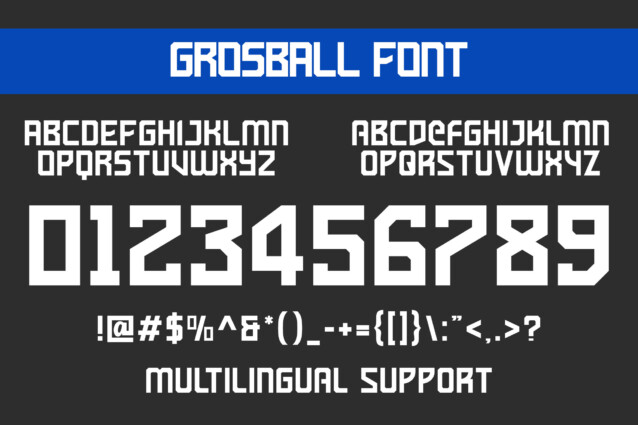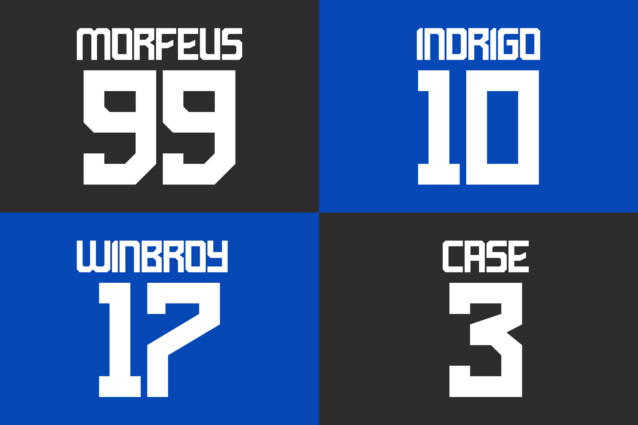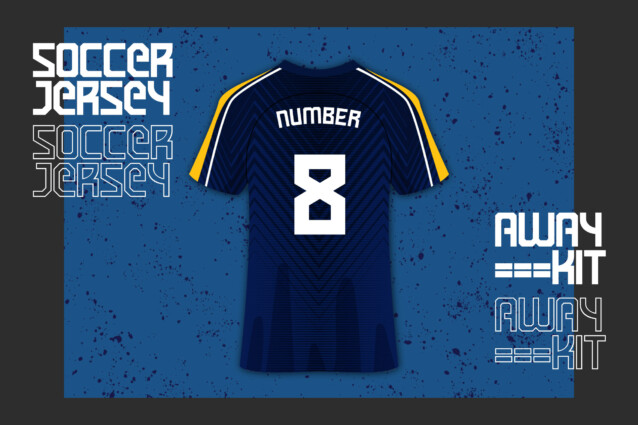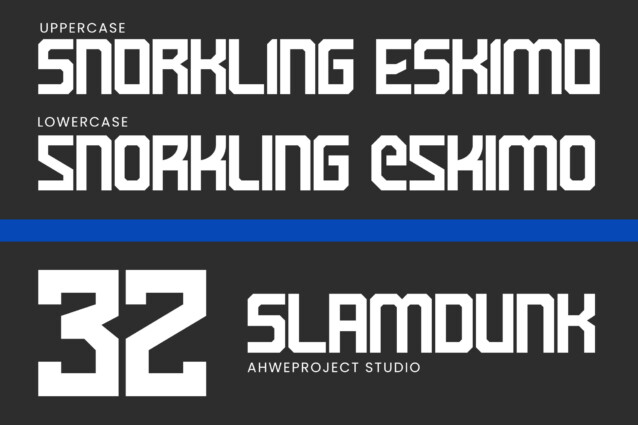
Grosball Font is a display font devoted to sports design. This font is devoted primarily to football design. Grosball fonts can also be used to design logos, posters, magazines, jerseys, t-shirts, and others.